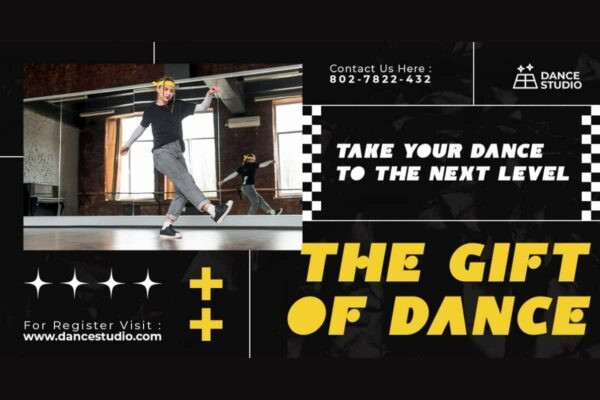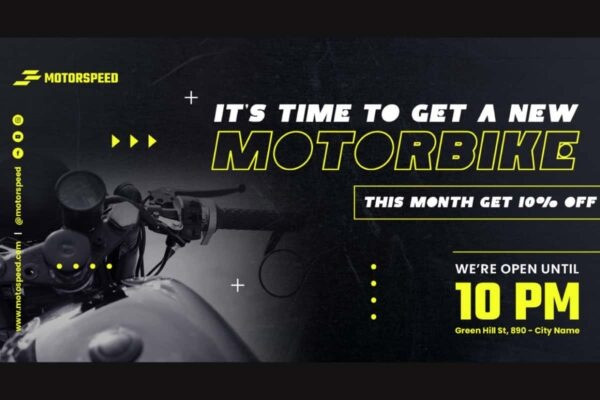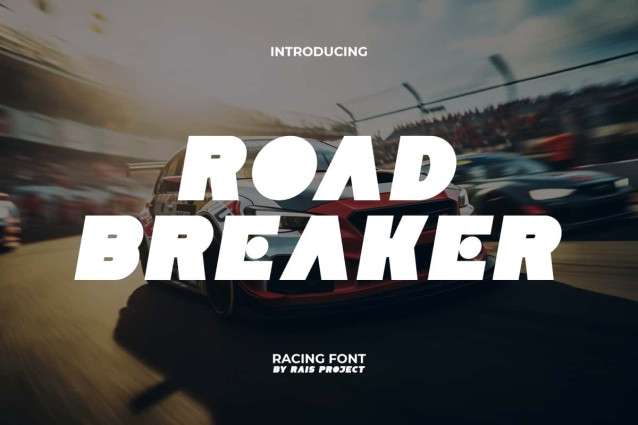
Road Breaker Font
Road Breaker Font is a unique bold racing font that can convey an impressive modern charm, by RaisProject. It will be great for poster, label, signage, stationery, custom design, product packaging, quotes, brand image, advertisement, invitation, marketing material, website page, and more!
Road Breaker Font includes a full set of ALL CAPS for Uppercase and Lowercase Letters, Numerals, and large range of Punctuation. This modern font will be suitable for various industries, such as sports, automotive, fashion, game, barber shop, cafe, event or festival, photography, printing, publishing, etc.